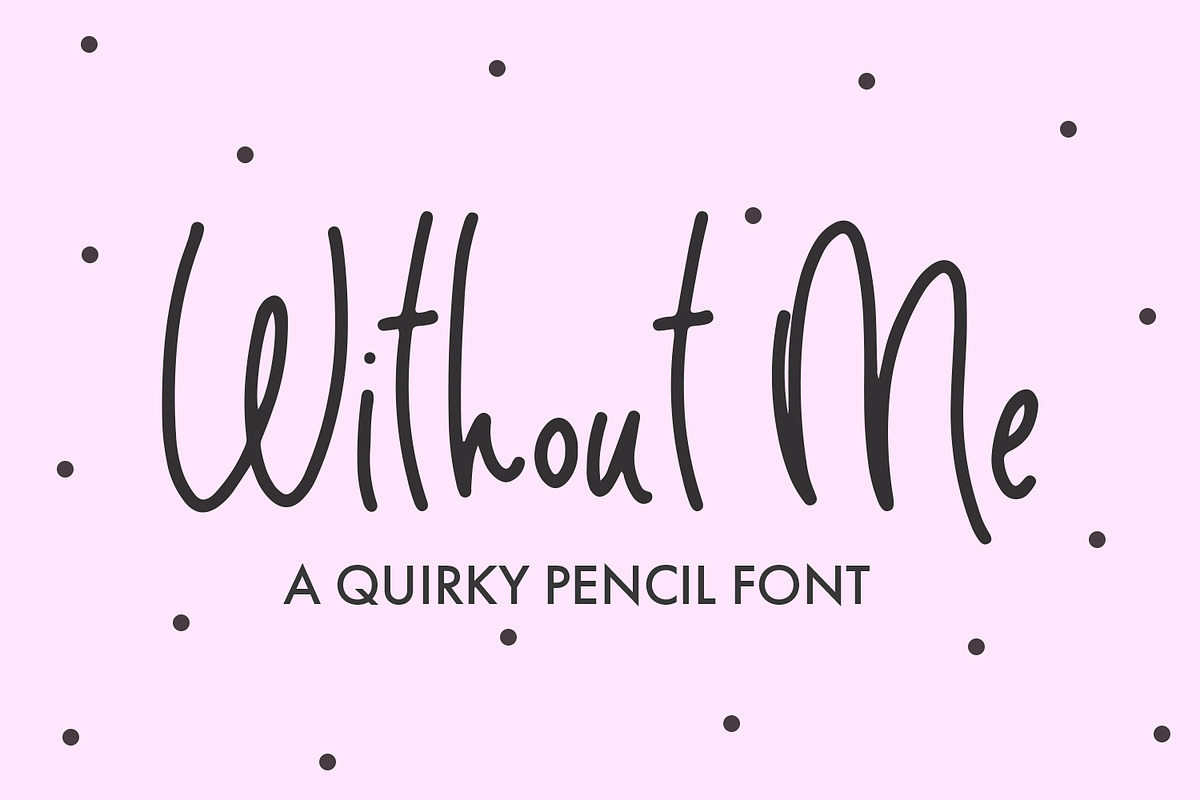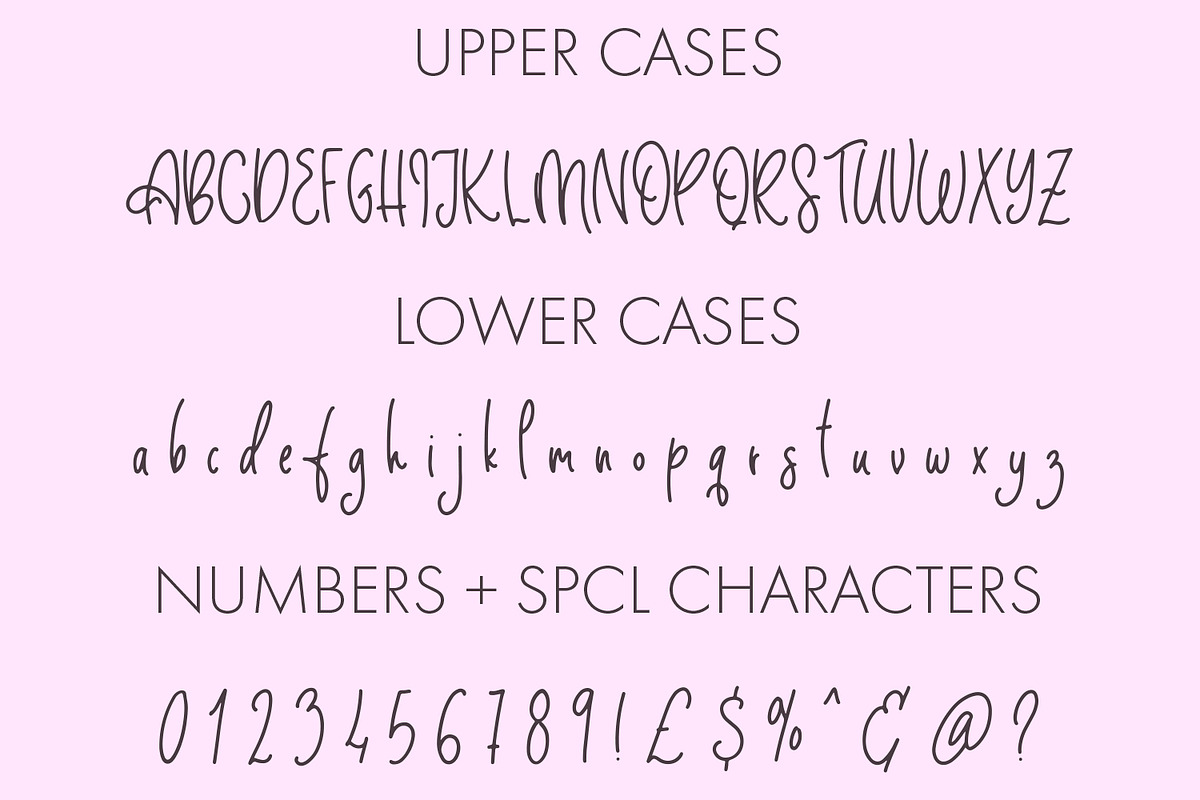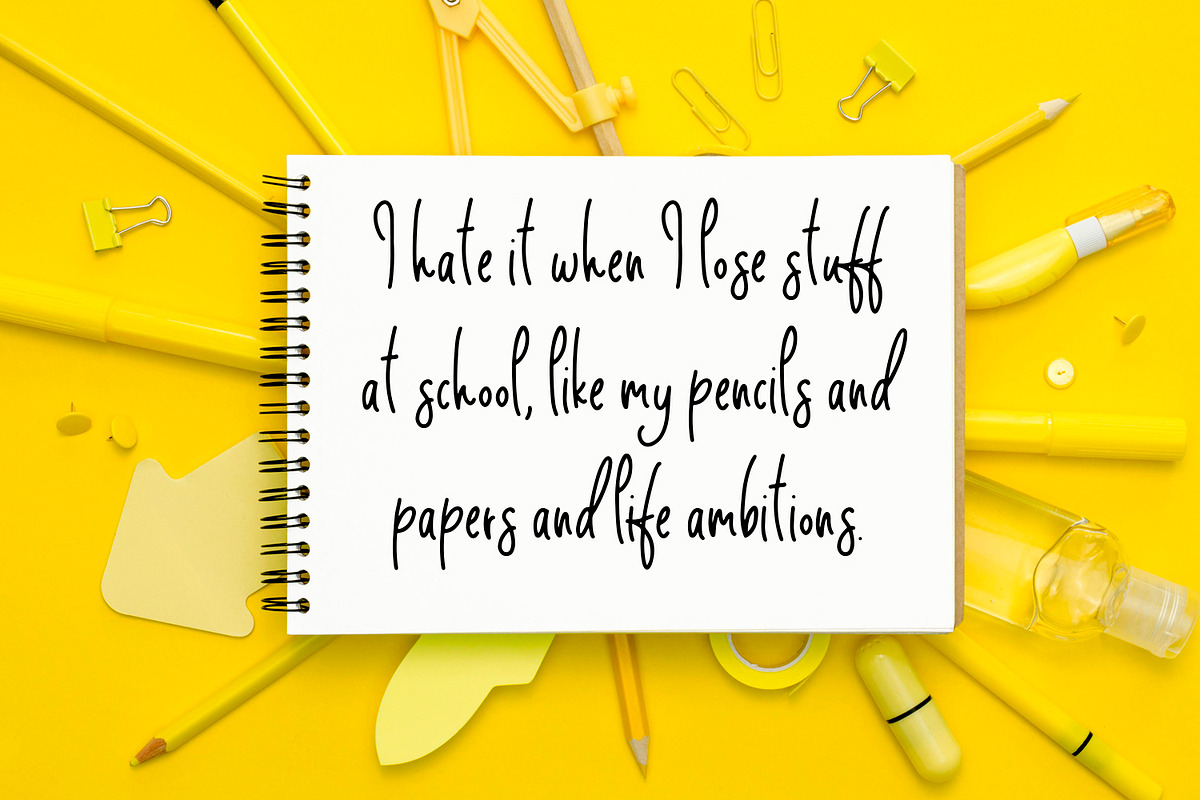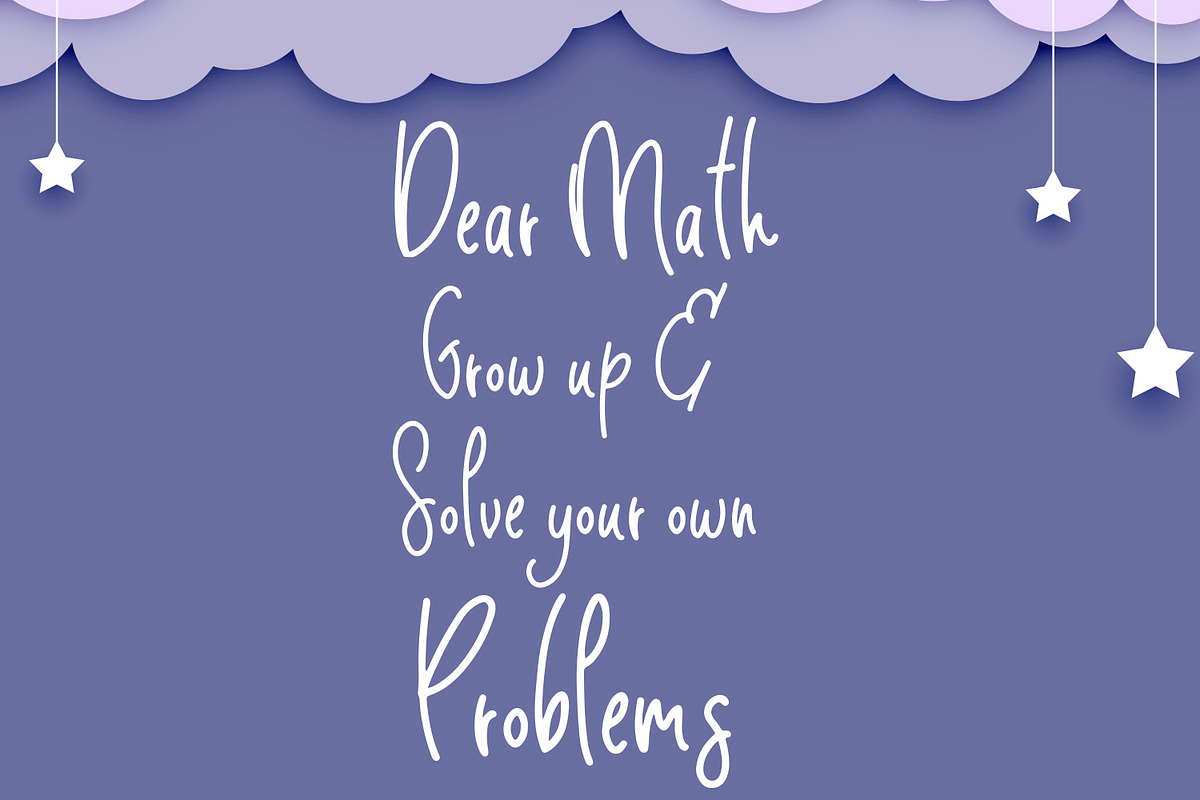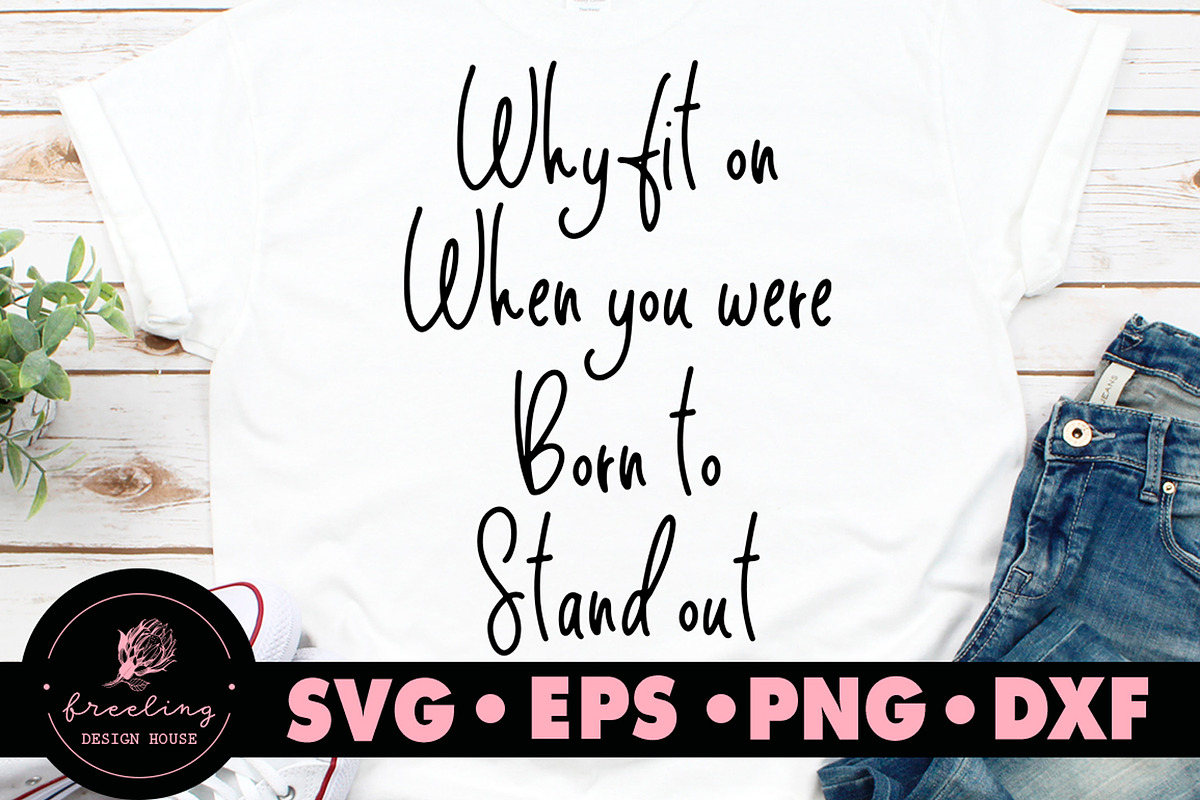
Without Me
"Meet 'Without Me' – The Tall & Quirky Font You've Been Waiting For! Let your creativity soar with this distinctive typeface that adds a touch of whimsy and uniqueness to your projects. 'Without Me' is perfect for making your designs stand out and leave a lasting impression. Embrace the quirk and elevate your visual storytelling!